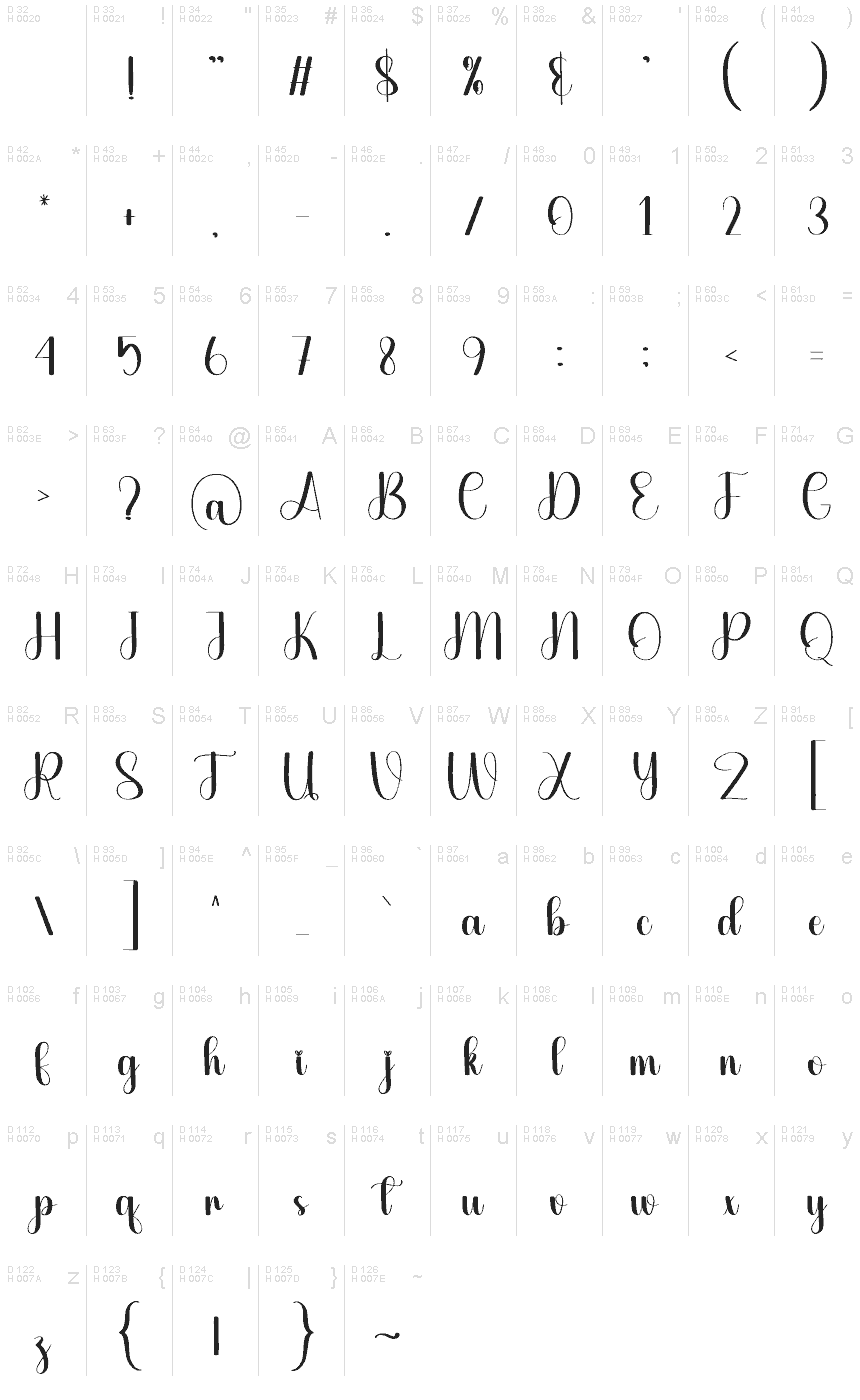
Perennial
Perennial font by Scratchones brings modern calligraphy with a hint of liveliness and elegance. The flowing characters of this script typeface express class and sophistication while carrying beautiful decorative elements within. Expression is in the heart of this free calligraphy font that is perfect for your projects which require sensitive, yet stylish designs.
Use Perennial in posters, business cards, cafe or restaurant menus, inspirational quotes and greeting cards. Invitations to business events, weddings, birthdays graduations and so on will look amazing when decorated with it. Use it to design branding material like logos or packaging box covers. Various book covers can also benefit its use as well as home decor objects such as glassware pieces (mugs…), art prints etc…